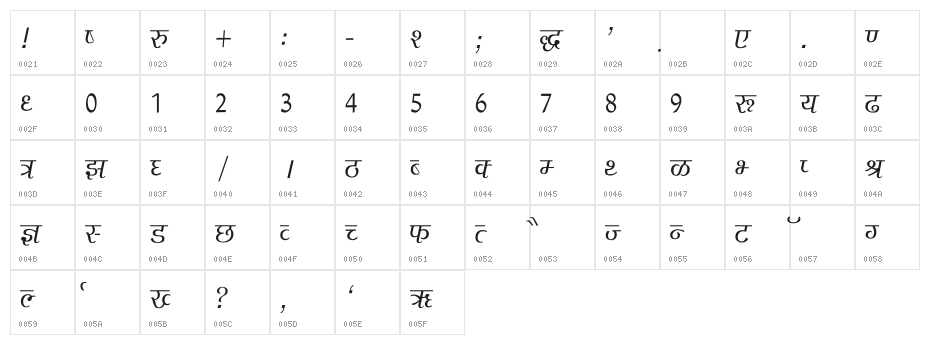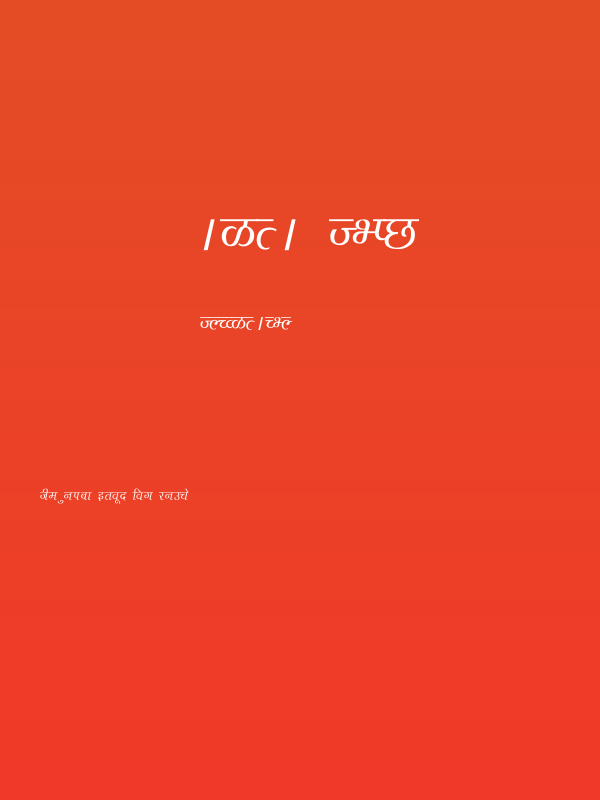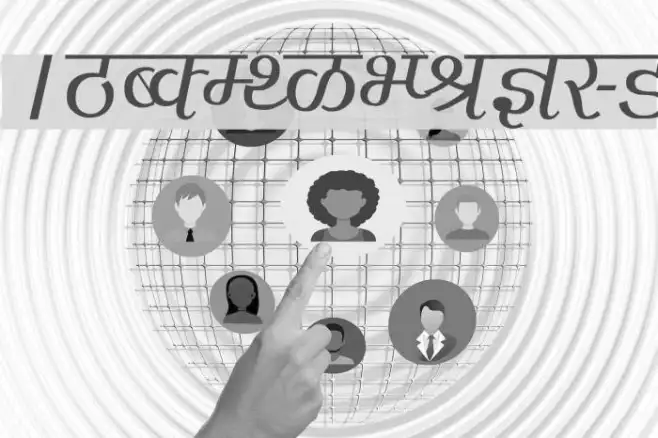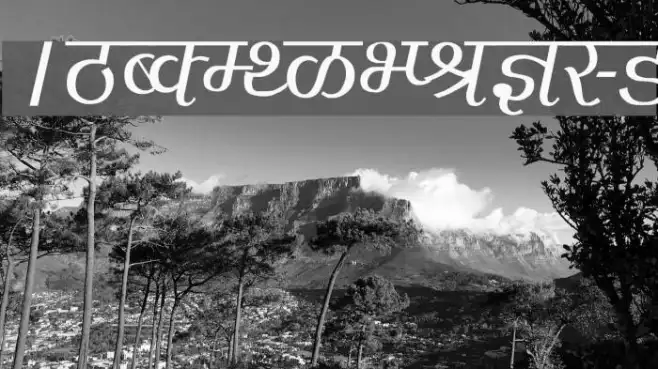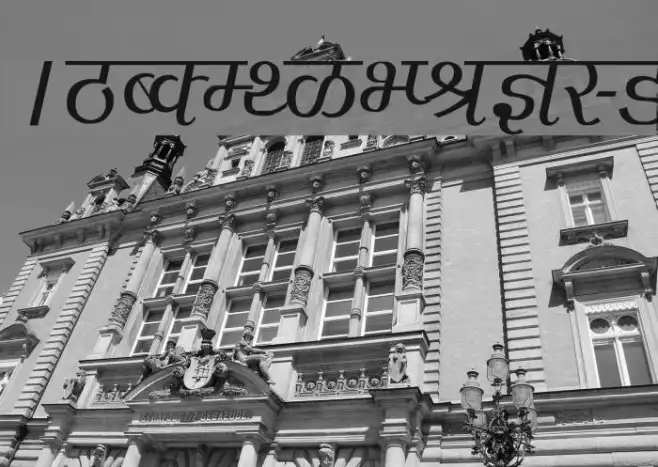
Agra Thin Font
Agra Thin Description
This font features a thin, elegant style with a modern twist. The characters are designed with a high level of detail, showcasing a blend of traditional and contemporary elements. The strokes are delicate, with a consistent thinness that gives the font a refined and sophisticated appearance. The overall design is clean and minimalistic, making it suitable for a variety of applications. The numerals are clear and easy to read, while the special characters add a touch of uniqueness to the font. This font is perfect for projects that require a touch of elegance and modernity.